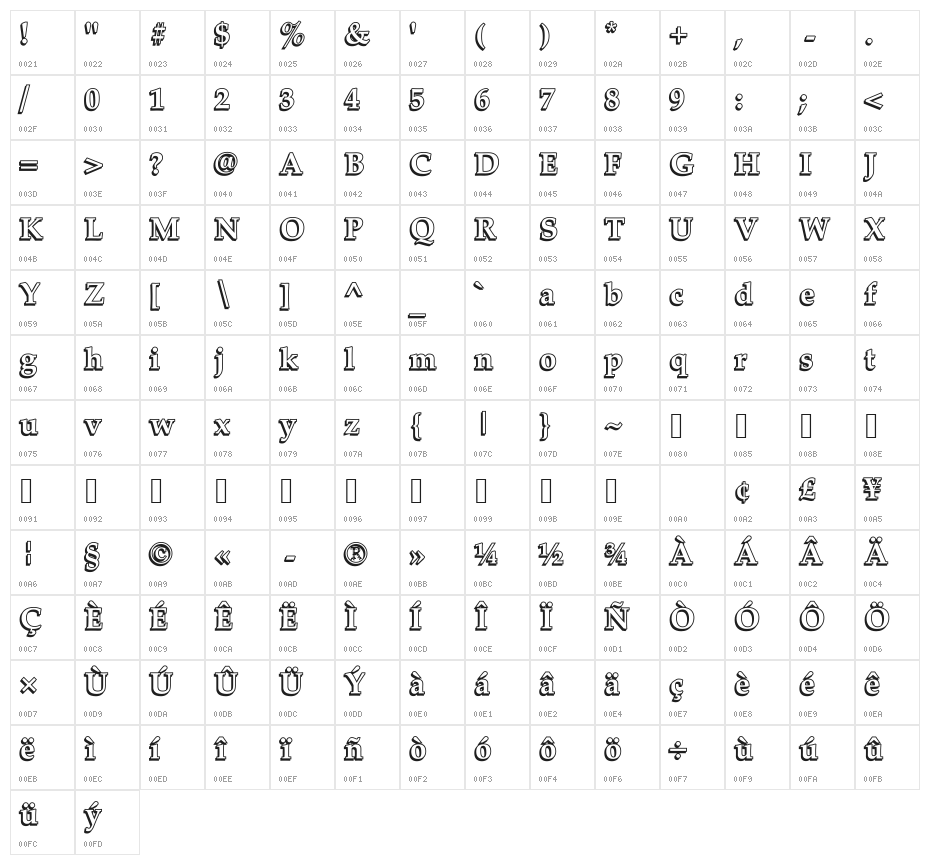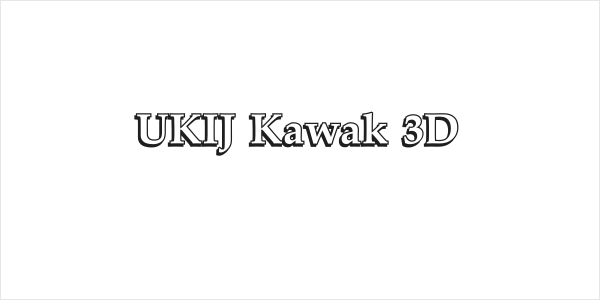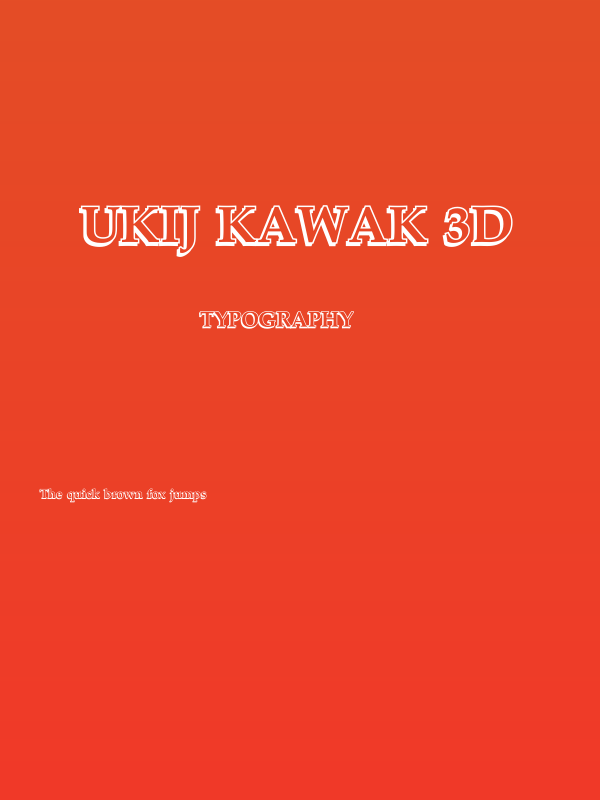
UKIJ Kawak 3D Font
UKIJ Kawak 3D Description
This font features a bold, three-dimensional design with a strong presence. The letters are outlined with a shadow effect, giving them a striking and dynamic appearance. The uppercase and lowercase letters maintain a consistent style, with clean lines and a balanced structure. The numerals and special characters are designed to match the boldness of the alphabet, ensuring a cohesive look across all text. This font is ideal for making a statement, with its eye-catching and modern aesthetic.
| Proposed Projects | Ideal for posters, headlines, logos, and any design that requires a bold and dynamic look. |